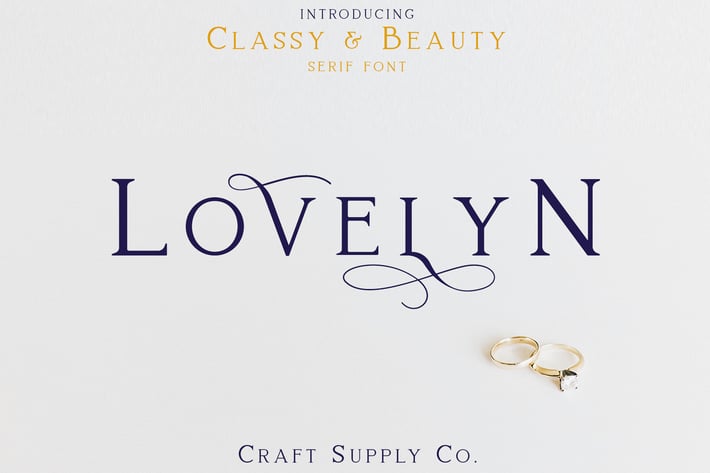
Lovelyn Font
Lovelyn Font is an elegant serif font that offers a wide range of possibilities, especially
for a lot of alternative. Lovelyn Font offers an attractive tool for producing elegant decorative lettering, for example, for book covers or for posters and packaging.
1. Upper Case & Lowercase
2. Stylistic Alternates
3. Standart Ligatures
4. Numerals & Punctuations (OpenType Standard)
5. Accents (Multilingual characters)